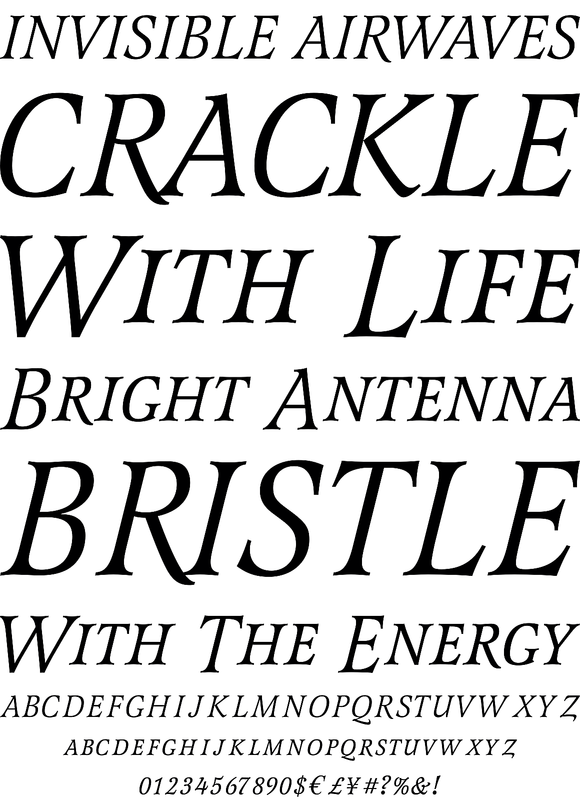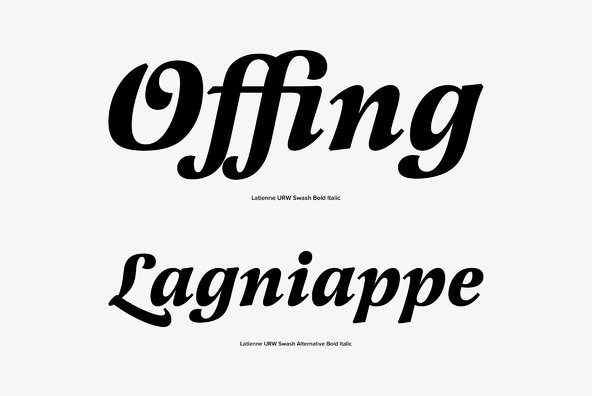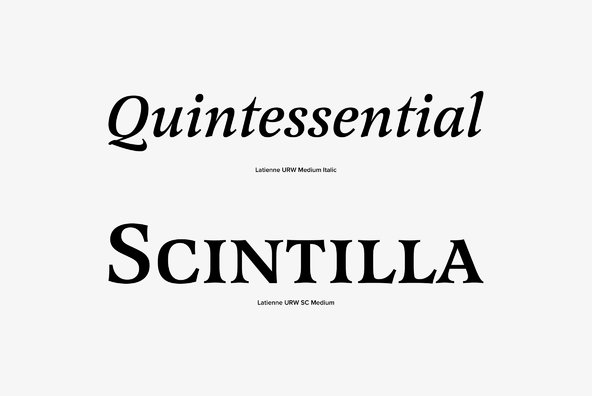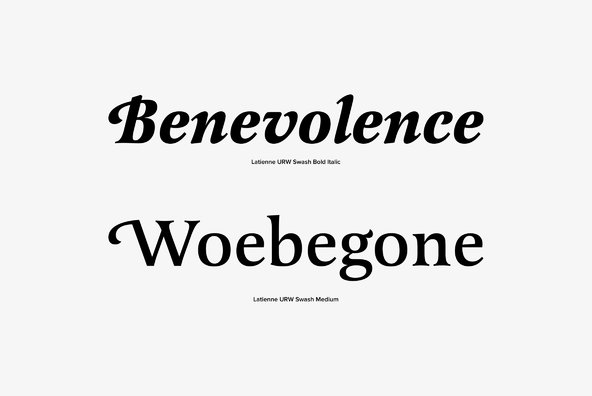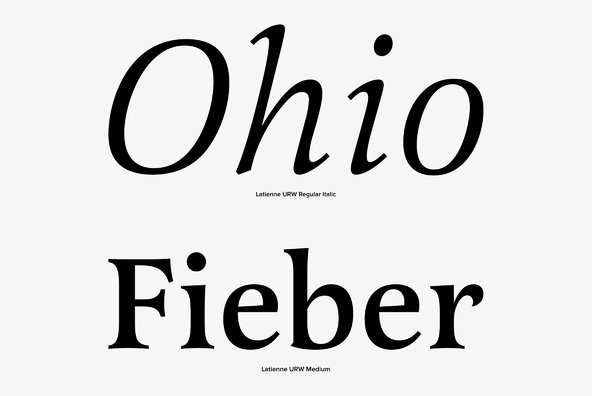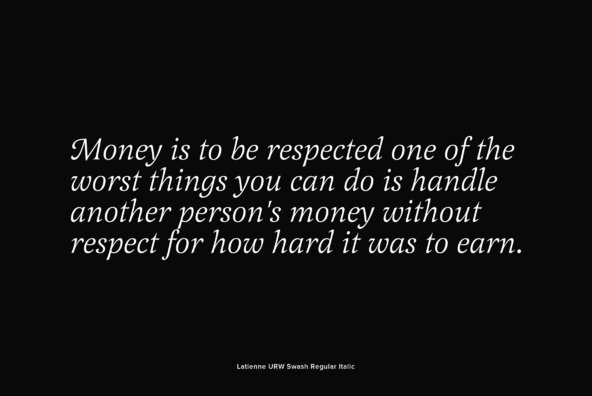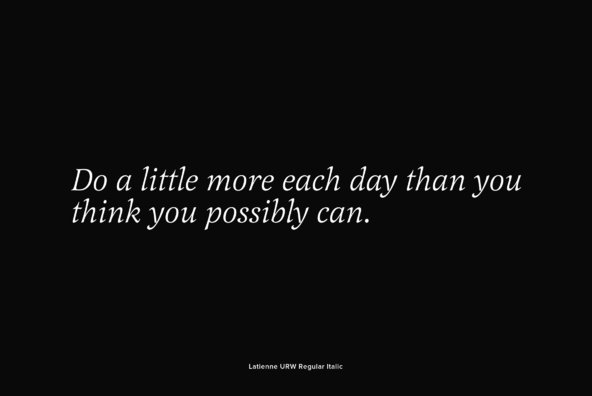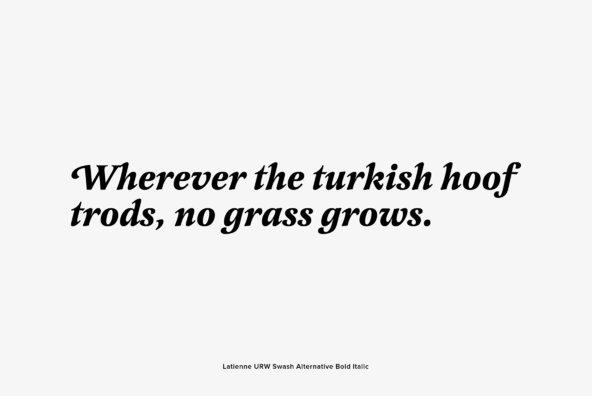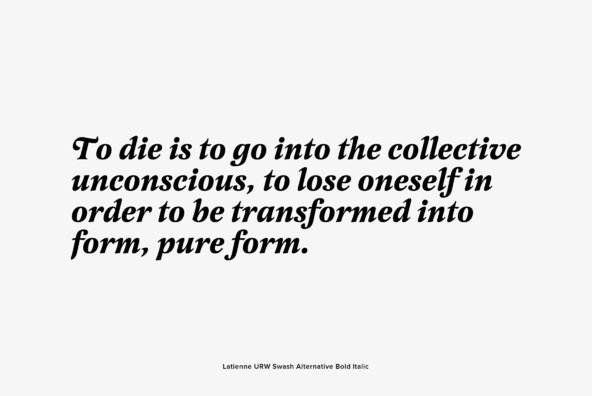
Latienne Latienne
Latienne is a large serif font family design, including 19 style options in the complete family. This font family also includes beautiful swash styles adding a more dynamic bounce and range to your type settings. Latienne was designed and released by Mark Jamra (URW) in 1990.